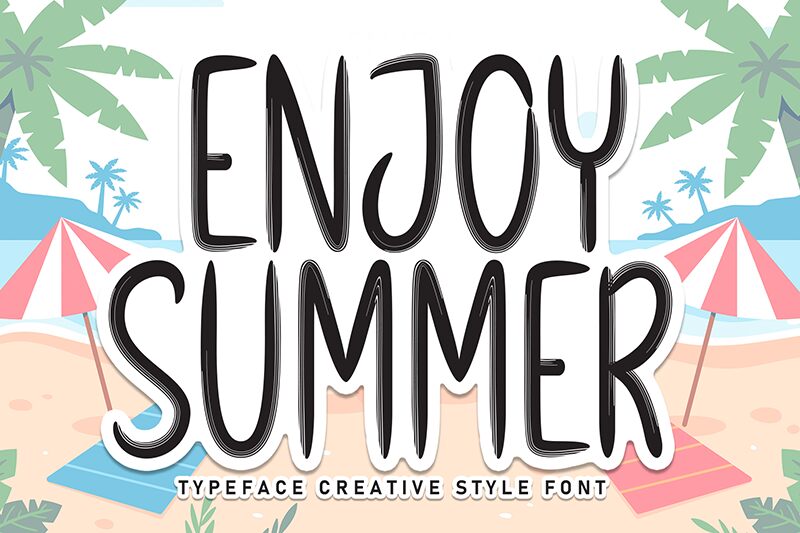
Enjoy Summer font designed by Andi Moz is a free brush font that carries a lively and relaxed feel. Its organic structure allows for an energetic yet casual feel, providing an approachable and dynamic character. As expected from a brush typeface, strokes aren’t a monoline, allowing the pleasant imperfection to shine in your designs. All these characteristics turn Enjoy Summer into a contemporary and informal typeface suitable for easygoing captions and more.
Create a warm and welcoming environment or a lively and playful one with this typeface without having to worry about the combination of characters. It fits any branding project or subheadings for magazines, apparel designs and all sorts of print material. Its letters can even embellish personalized items like invitations or ornaments with incredible artwork.
This is a sweet and friendly handwritten display font. Cute and fun, this font is ideal for writing wedding invitations, cards, or any other design that might need a playful touch!